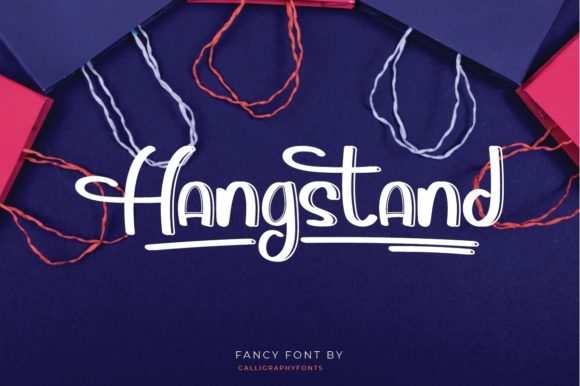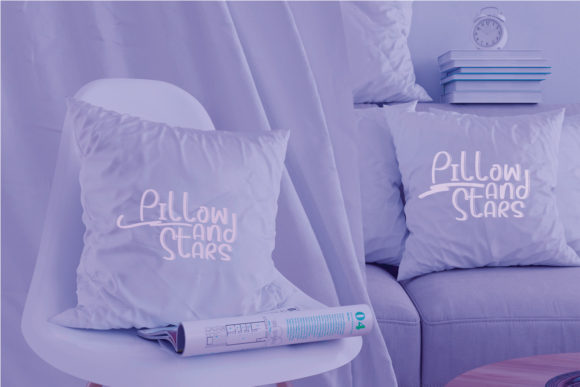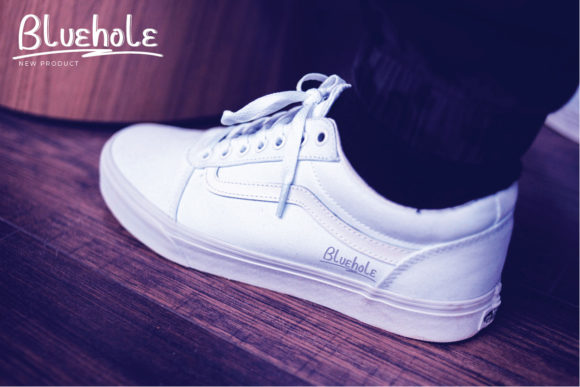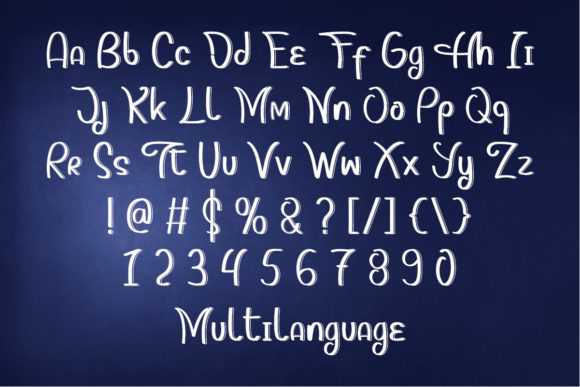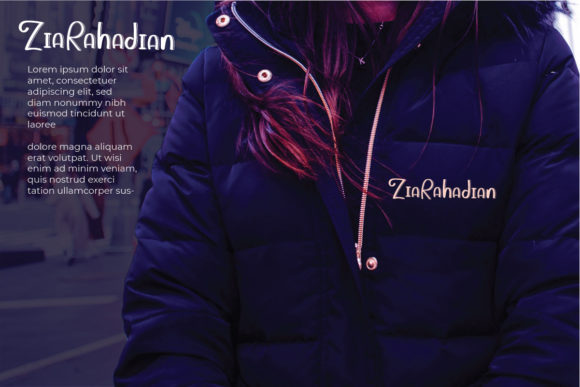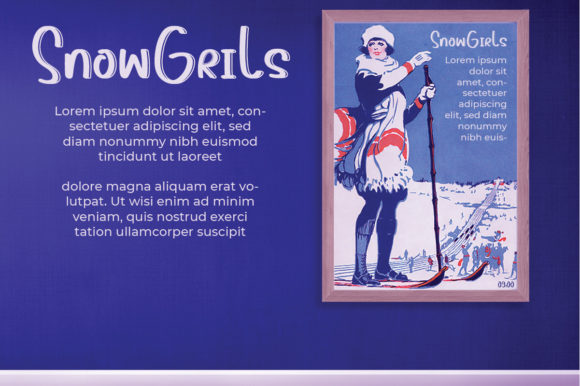
About Hangstand Font
Hangstand is a beautiful, well balanced and vintage styled script font. It is defined by smooth curves and is perfect for fashion branding or editorial designs. This font is PUA encoded which means you can access all glyphs and swashes with ease!